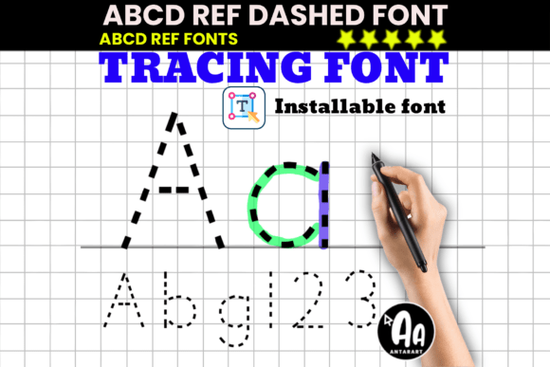
If you're creating early learning materials whether you're a teacher, homeschooler, or designer making printable resources you know how important it is to use fonts that match classroom standards. The Abcd Ref Dashed Dotted Tracing Font gives you that familiar dot-and-dash style used in handwriting curricula across the U.S., making it instantly recognizable and practical for kids aged 4 to 8.
This font includes uppercase and lowercase letters, numbers, punctuation, and even editable name templates so you can quickly generate personalized tracing sheets without redrawing each letter by hand. It’s built for real-world use: print worksheets, design bulletin board headers, or prep back-to-school review packets with just a few clicks.
Why do educators prefer dashed/dotted tracing fonts?
Children learning to write benefit from visual guides that show stroke direction and letter shape. The Abcd Ref font mimics the classic “school paper” look dashed midlines, dotted ascenders and descenders that many PreK through 2nd-grade programs already use. Because it’s clean and minimal, it reduces visual clutter, helping young learners focus on form rather than decoration.
Unlike overly stylized fonts, this one prioritizes function. You won’t find swirls or flourishes here just clear, consistent letterforms that support proper pencil grip and motor development.
What can you actually make with it?
- Custom tracing worksheets type a child’s name or target vocabulary words and print
- Alphabet posters for classroom walls or homeschool learning centers
- Handwriting practice books you can sell on Etsy or distribute in your school
- Bulletin board titles with consistent, legible lettering
- Digital flashcards for screen-based learning or printable matching games
For small businesses or print-on-demand creators, this font also pairs well with more decorative styles when you need contrast like using a playful display font such as Luna Font for headings while keeping instructions or practice lines in Abcd Ref for clarity.
How does it compare to other educational fonts?
Many free tracing fonts online are either poorly spaced, missing key characters, or not truly editable. The Abcd Ref version solves those issues with professional kerning, full punctuation support, and vector-based outlines that scale cleanly at any size.
If you’re building a resource library, consistency matters. This font ensures every worksheet you create from September alphabet reviews to spring spelling drills uses the same reliable format students already know.
Who is this really for?
While marketed toward teachers and homeschoolers, this font is equally valuable for:
- Designers creating commercial-use educational bundles
- Crafters making laminated tracing cards or dry-erase kits
- Small business owners selling printable planners or kids’ activity packs
- Parents who want to reinforce writing skills at home without buying expensive workbooks
Because it’s compatible with both desktop and web-based tools (like Canva Pro), you don’t need advanced design skills to use it effectively.
Make sure your software supports installable fonts (most do). Then consider these quick tips:
- Test print at actual size some letters may appear too light if your printer settings are on “draft” mode.
- Use thick paper or laminate sheets for reusable tracing with dry-erase markers.
- Pair with solid-line fonts for answer keys or teacher examples (try typing the same word in a standard sans-serif like Arial below the tracing line).
- Save templates once you’ve formatted a name sheet or alphabet grid, reuse it all year.